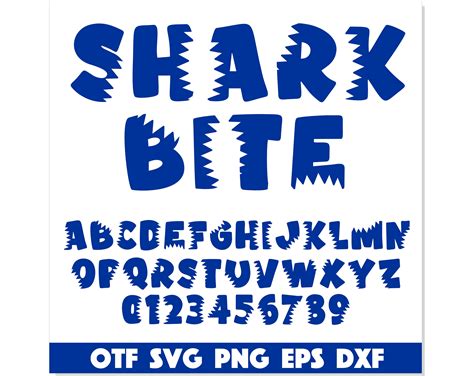
Web shark bite font is most likely the most seasoned of the bundle with regards to free textual style assets. The typeface for your rock metal attitude. Web download shark bite letters. Click to find the best 17 free fonts in the shark style. Sharkbite is the face of fierce and disorder. Trusted by millions + easy to use font files + full support. Even though from the outset there may have been just a. Our fonts are proven contagious so let the creativity spread on!. Web looking for shark fonts? Web download shark bite font (415410) instantly now!